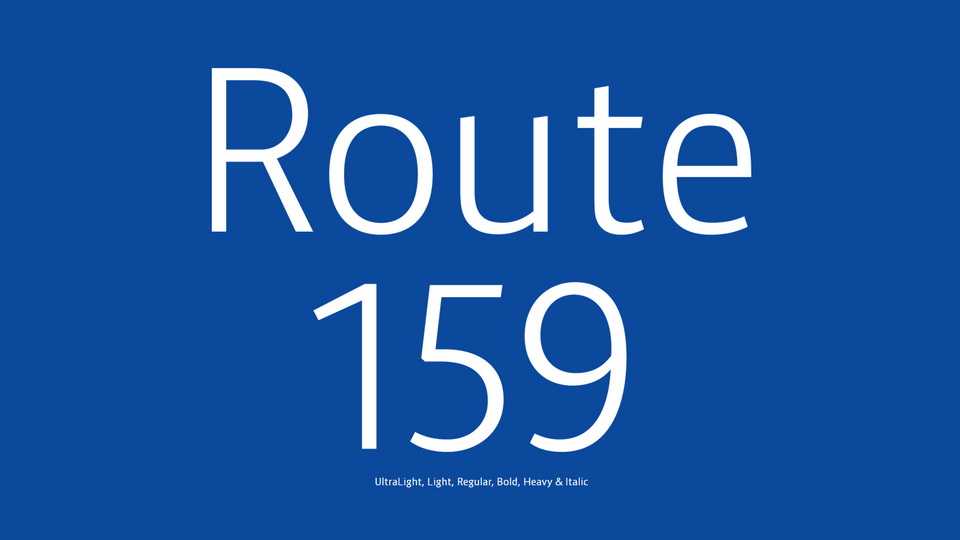
Download Route 159 typeface, a sans serif font family in 6 weights with matched Italics. Route 159 has good readability even on small sizes, perfectly works for texts and titles.
Designer: Sora Sagano